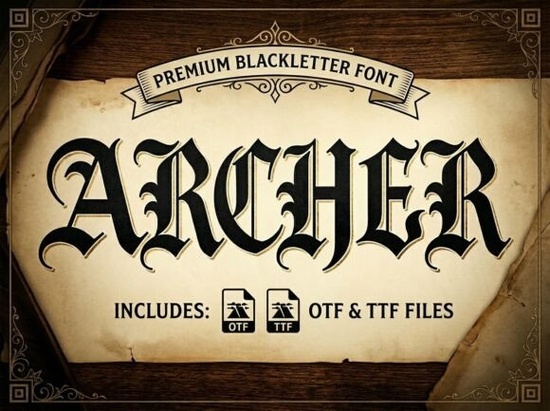
The Archer font is a blackletter typeface that balances medieval strength with modern readability. It takes the sharp, authoritative look of traditional gothic scripts and simplifies them no overly ornate loops or hard-to-read flourishes. If you're working on a project that calls for heritage, toughness, or historical character, this typeface delivers without making your text illegible.
Whether you're designing for a craft brewery, a metal band, a tattoo shop, or an editorial spread with an old-world feel, Archer fits right in. It's built for real-world use, not just decoration.
What Makes Archer Different from Other Blackletter Fonts?
Blackletter fonts can be tricky. Many of them look impressive at first glance but fall apart at smaller sizes or in longer text. The Archer typeface was designed with that problem in mind.
Here's what sets it apart:
- Clean letterforms Each character keeps the bold gothic structure but removes unnecessary complexity.
- Good readability You can use it at moderate sizes without losing legibility.
- Versatile weight It has enough visual punch for logos and headlines without being overwhelming.
- Modern refinements Spacing and proportions feel balanced, not cramped like many traditional blackletter styles.
If you've tried other gothic fonts and felt they were too busy or too hard to read, Archer might be the one that finally works for your project.
What Projects Is the Archer Font Best For?
This typeface shines in specific design contexts. Here are some real-world uses where it performs well:
- Craft brewery logos The heritage feel pairs naturally with artisan brands and small-batch products.
- Heavy metal and band merchandise Sharp angles and bold strokes match the aesthetic perfectly.
- Historical or vintage branding Think book covers, museum posters, or heritage-themed packaging.
- Editorial layouts Drop caps, pull quotes, or section headers in magazines and blogs.
- T-shirt and print-on-demand designs Gothic lettering continues to sell well in apparel, especially in the rock, biker, and tattoo niches.
- Wedding and event invitations For couples who want a formal, classic look with some edge.
It also works nicely for social media graphics, poster designs, and any branding that needs a bold, authoritative voice.
How Does Archer Compare to Other Gothic Typefaces?
- Antifight A heavier, more aggressive blackletter with a rougher edge. Great for edgier designs but less versatile for editorial work.
- Grimersia More decorative and ornamental, leaning into classic gothic aesthetics with extra flair. Beautiful but can be harder to read at smaller sizes.
- Malvoid Darker and moodier, with a heavier visual weight. Works well for horror or fantasy themes.
Archer sits in a sweet spot. It's bold enough to make a statement but restrained enough to stay readable and professional. If your project needs gothic character without sacrificing clarity, it's a strong pick.
Tips for Pairing Archer with Other Fonts
Blackletter fonts rarely work well on their own for body text. Pair Archer with a simpler companion font for best results:
- Use a clean sans-serif like Montserrat or Open Sans for body copy.
- Try a vintage serif like Playfair Display for editorial layouts.
- Stick to one blackletter font per design mixing two gothic styles usually looks cluttered.
- Let Archer handle headlines, logos, or accent text only.
- ✅ Pair it with a readable secondary font for any longer text.
- ✅ Check how it looks on both light and dark backgrounds.